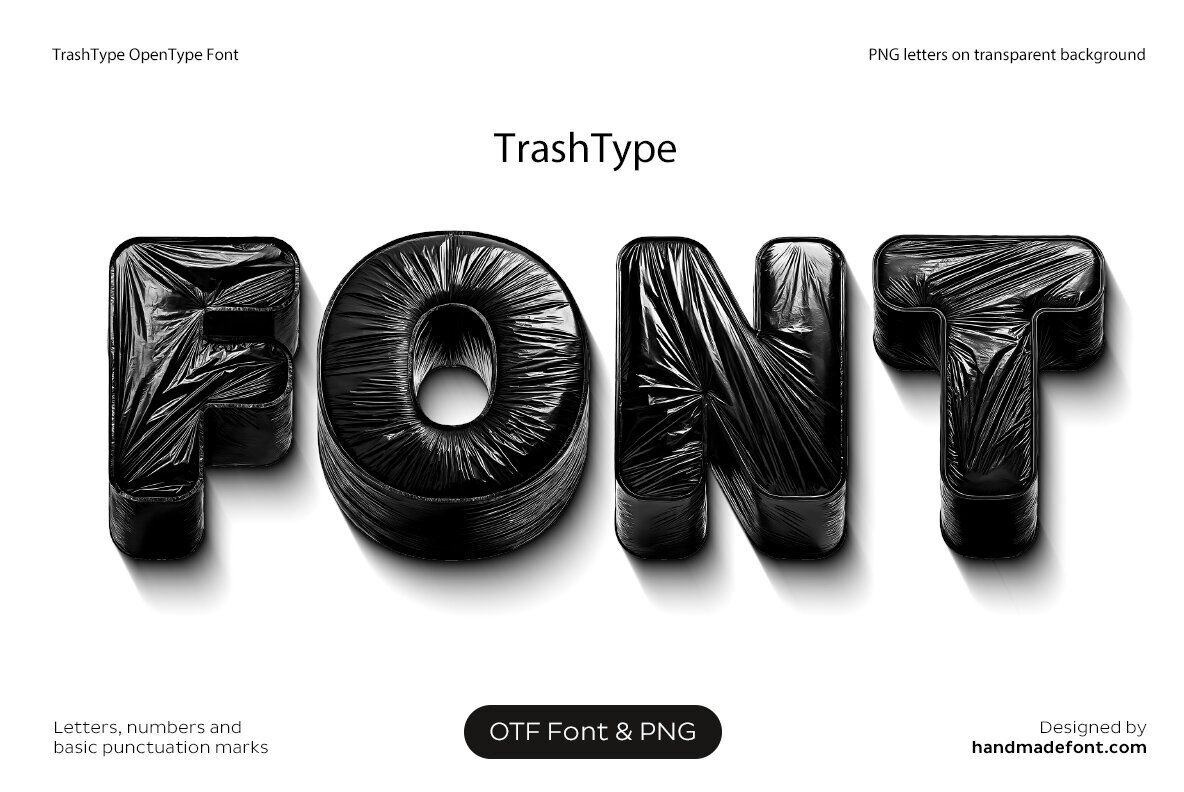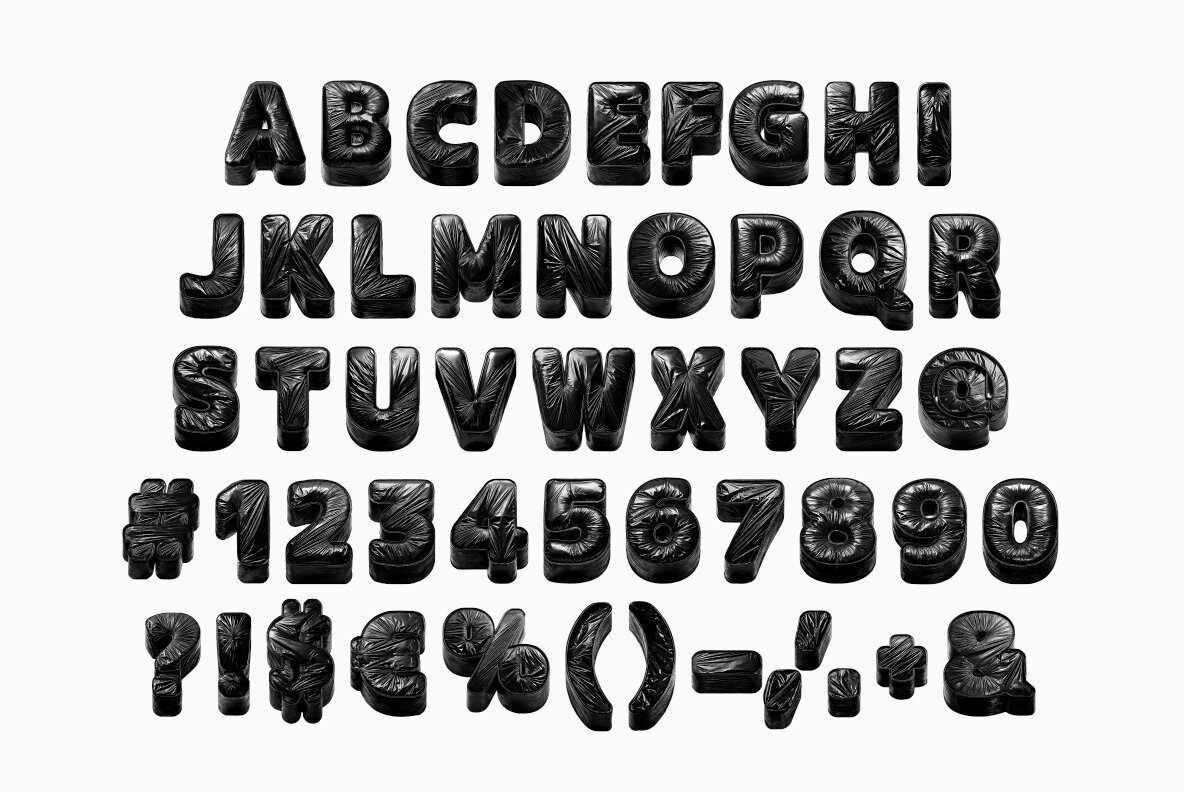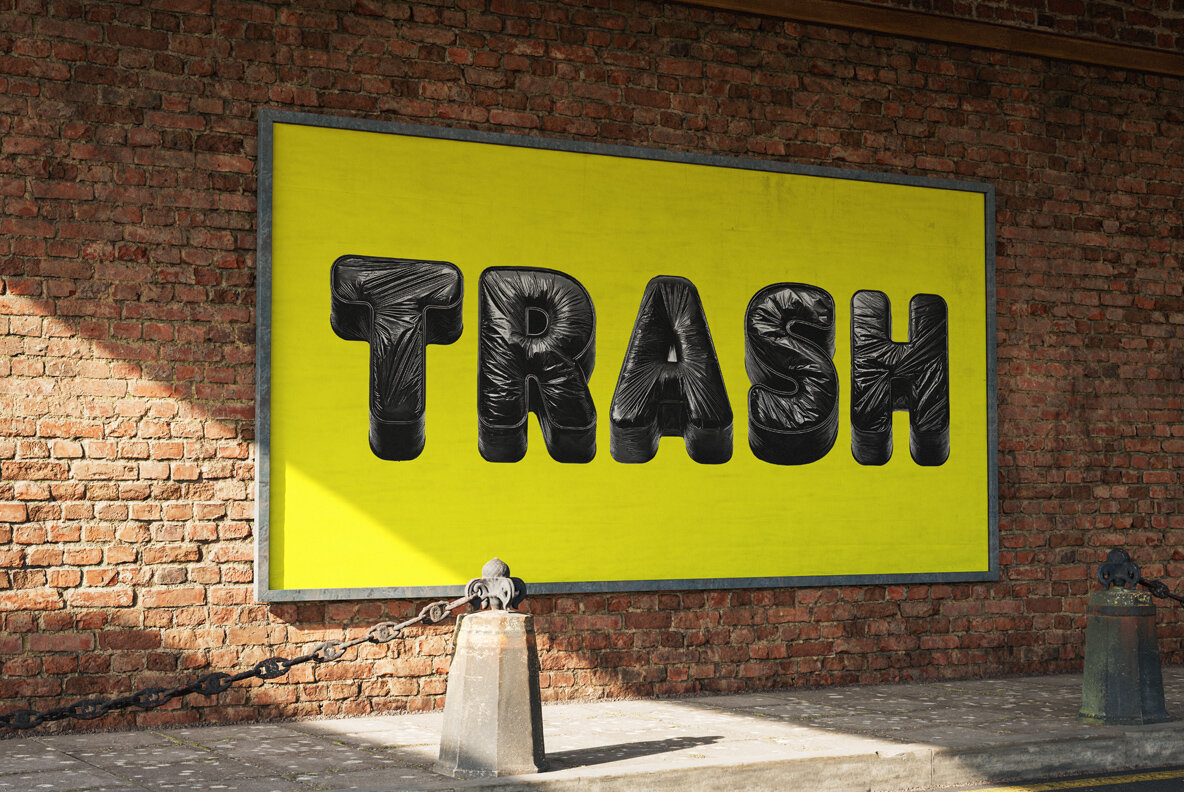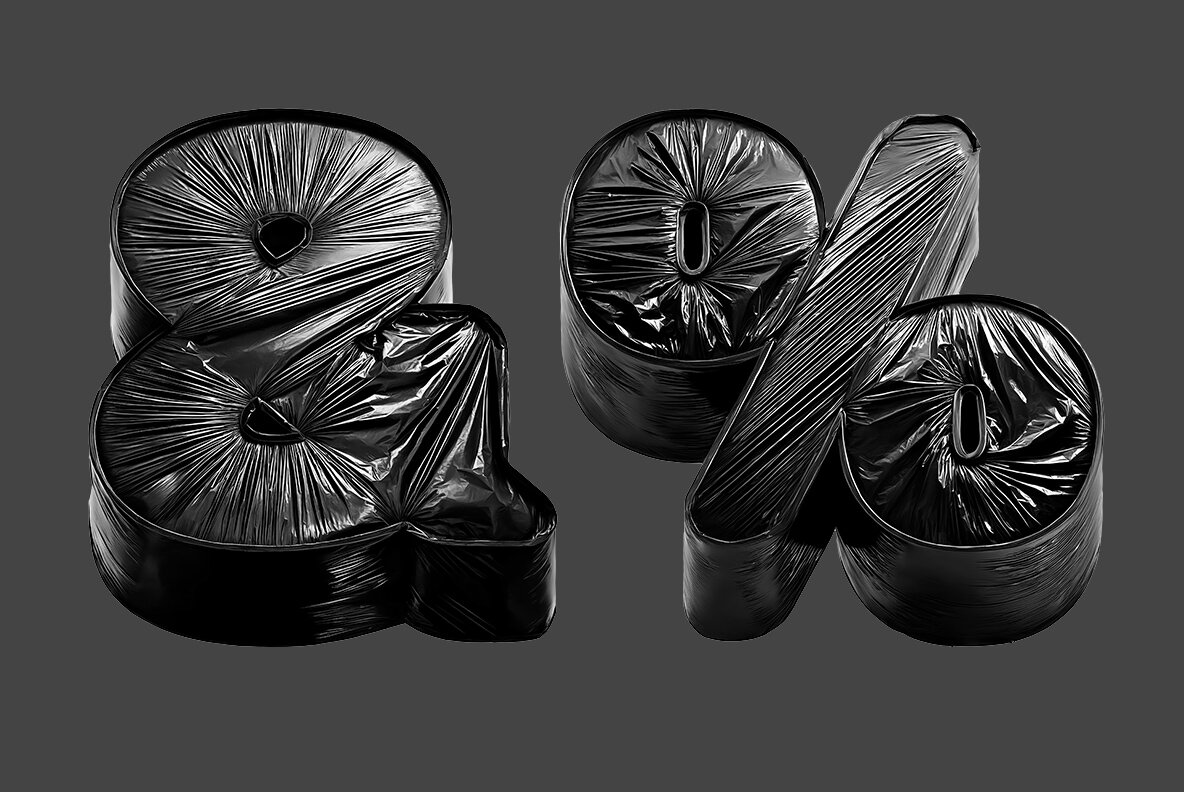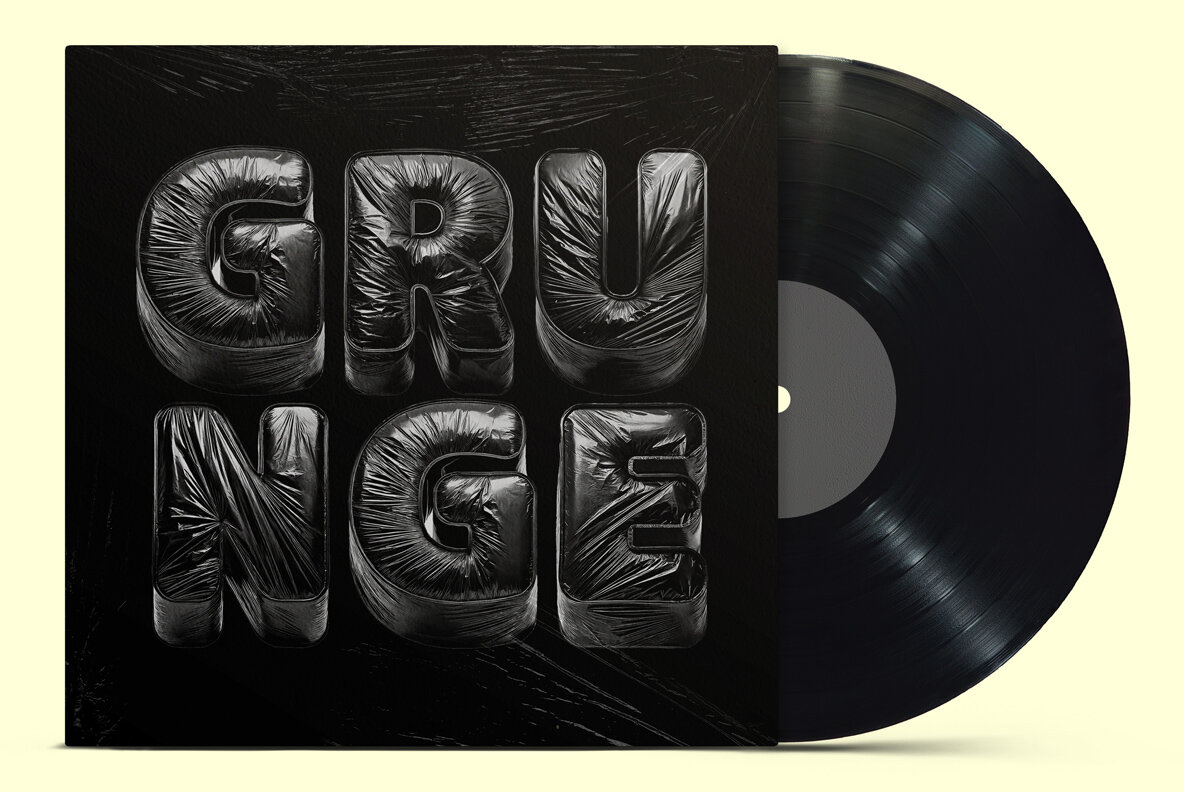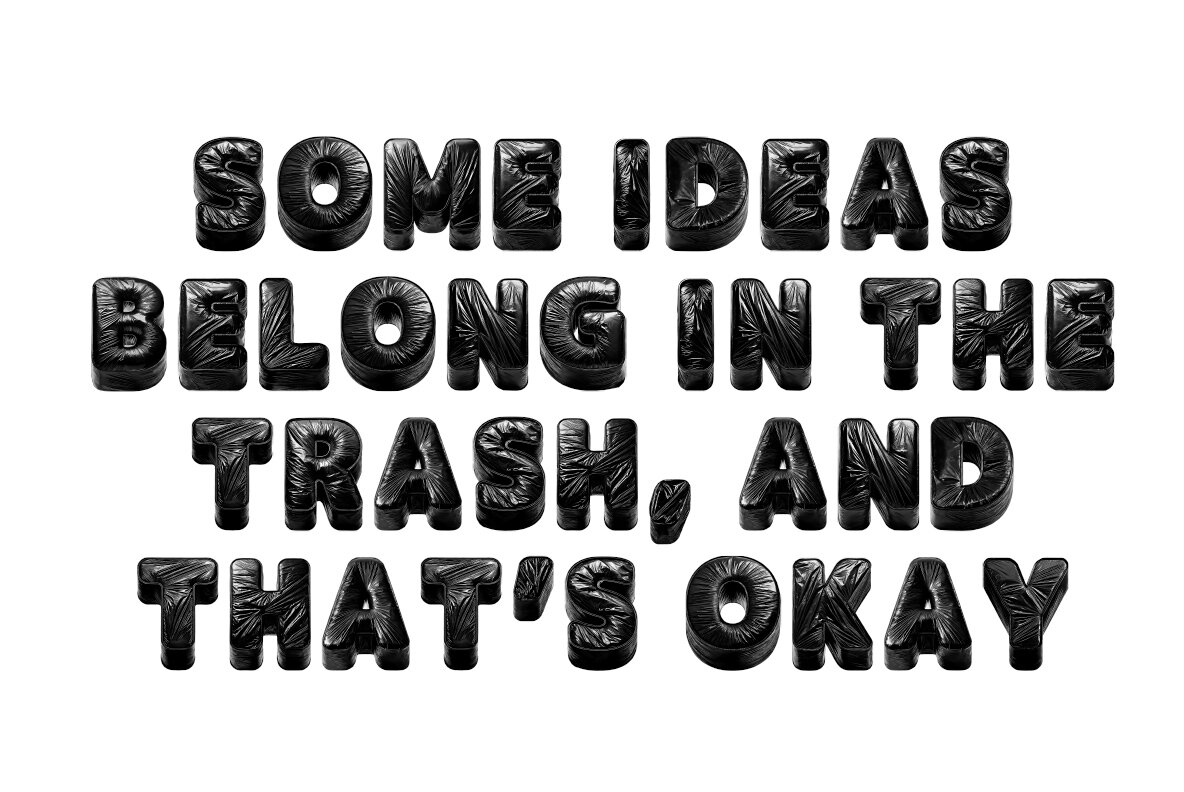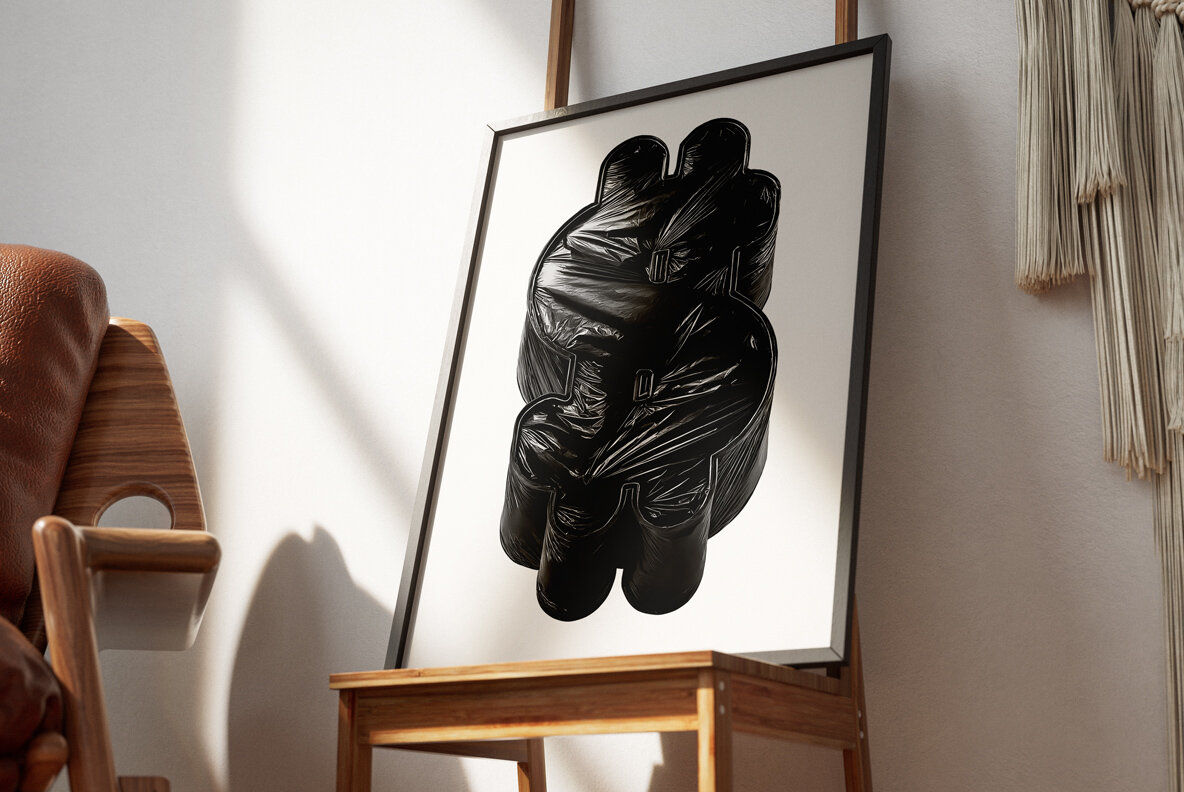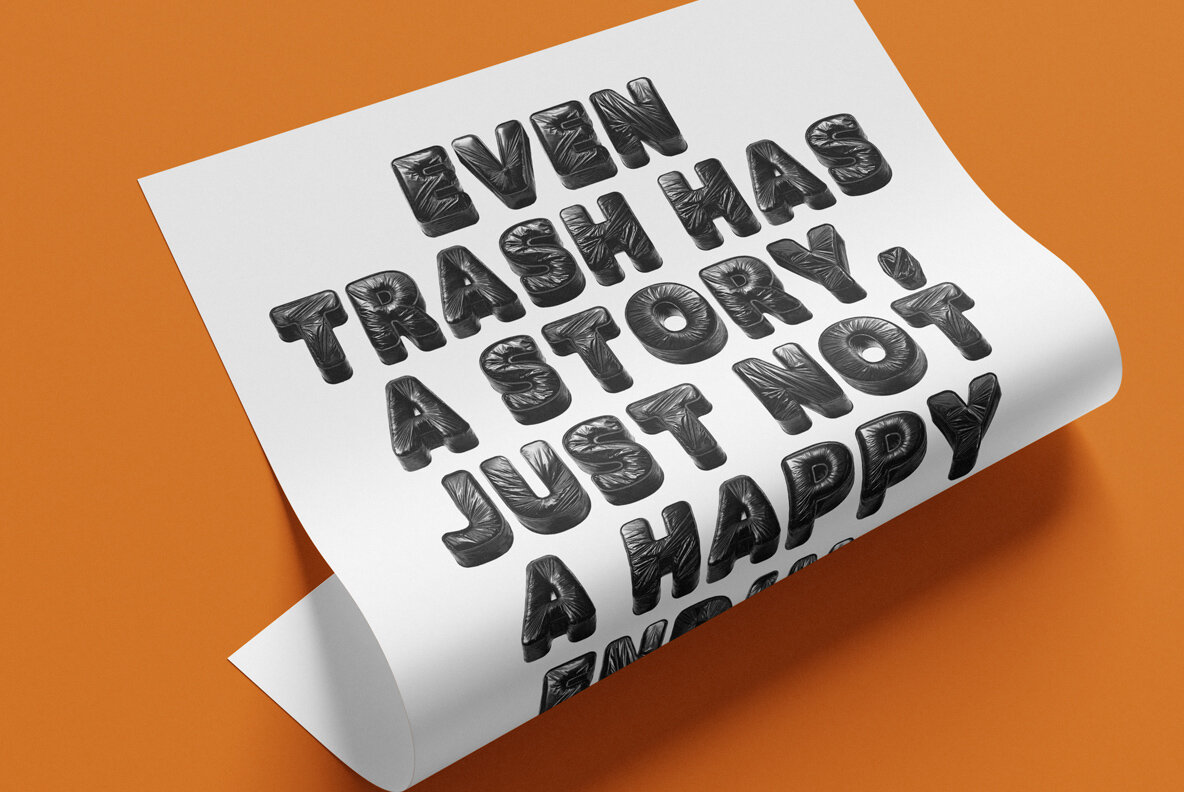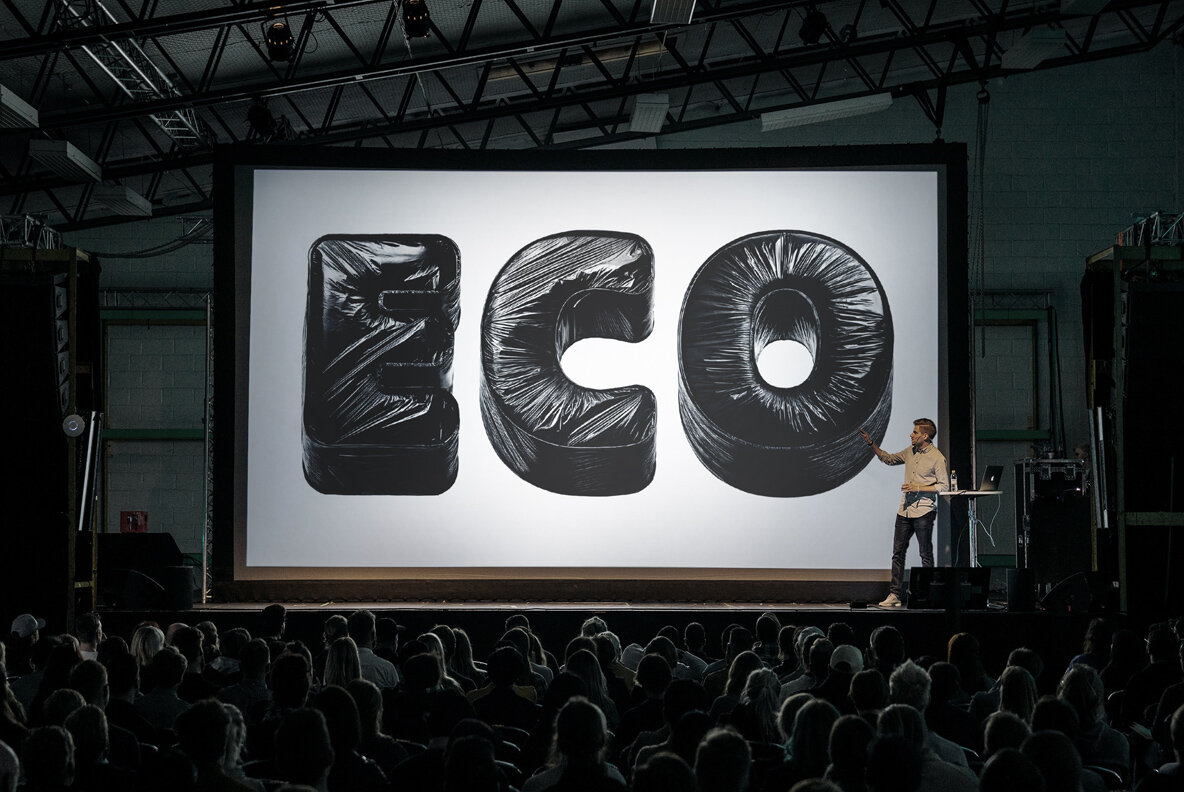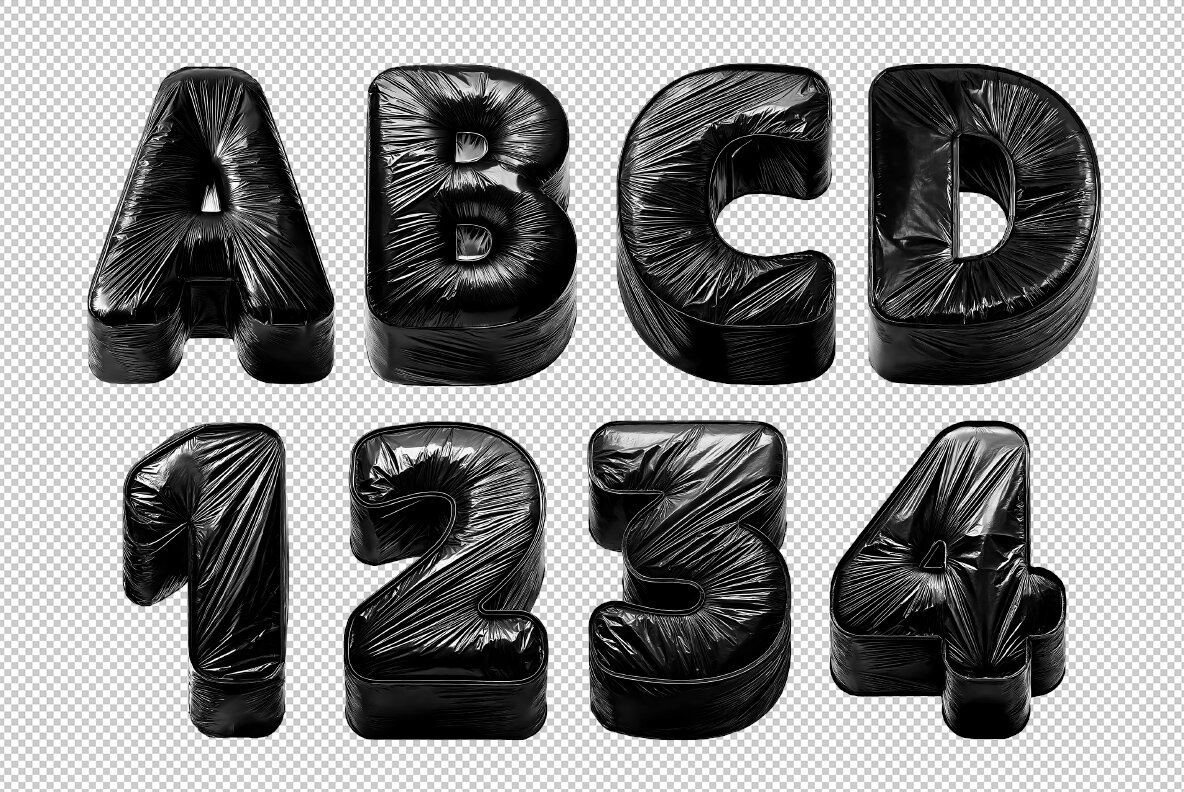
Introducing TrashType—a typeface that transforms the ordinary into extraordinary as it crafts letters reminiscent of discarded treasures. Each character is akin to an inflated black trash bag filled with intrigue and the remnants of yesterday's escapades. This font exudes a chunky, glossy, and unapologetically plastic aesthetic, complete with meticulous wrinkles and pulls for that hyper-realistic trash couture vibe. Fusing dumpster chic with brazen design rebellion, TrashType is an unsolicited ode to waste, making it a standout choice for punk zines, eco-friendly statements, and unconventional branding. TrashType isn't just another typeface; it's a defiant statement that manages to make rubbish look remarkably stylish. This high-definition OpenType font includes uppercase characters, numerals, and basic punctuation, with a draw height of approximately 800 pixels. As a color OpenType-SVG font, it's compatible with numerous software platforms including Photoshop, Illustrator, and InDesign. Each letter also comes as an individual PNG file on a transparent background, with a resolution of 4000x4000 pixels.TrashType Font: Embrace the Grotesque